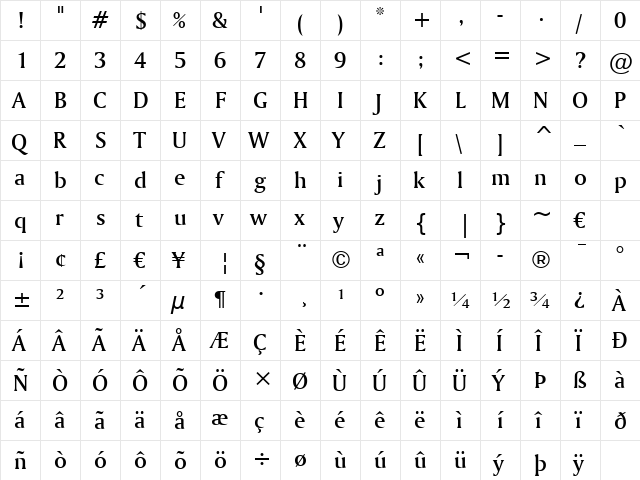
Amerigo Md BT Medium
Design Context for Amerigo Md BT Typeface
Amerigo Md BT offers clean, dependable letterforms without strong stylistic allegiance, making it a practical choice for designers who need flexibility.
Pro Tip: Use Amerigo Md BT in both headline and body roles to test its range before committing to a single application.